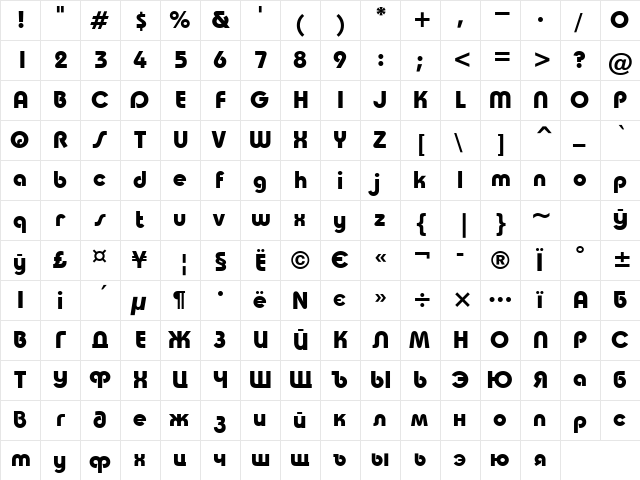
Taurus Bold
Design Context for Taurus Typeface
Taurus offers clean, dependable letterforms without strong stylistic allegiance, making it a practical choice for designers who need flexibility. Its bold stroke weight gives it real presence on the page.
Pro Tip: Use Taurus in both headline and body roles to test its range before committing to a single application.